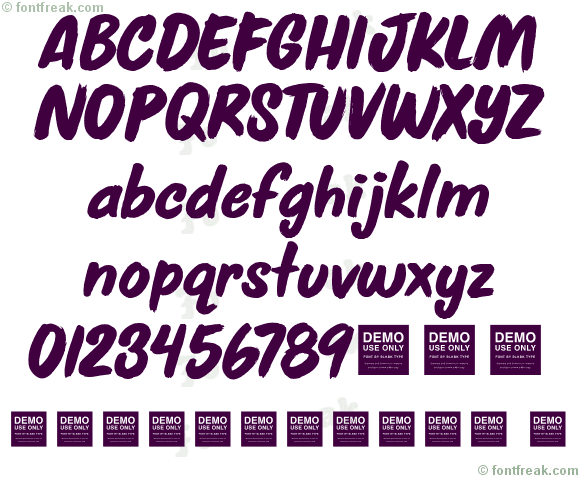
Jive Talk
Jive Talk by BLKBK Fonts is a captivating display font that embodies a playful spirit, perfect for anyone seeking to add a touch of personality to their projects. This font features a bold, hand-drawn style that exudes a lively and energetic vibe. The strokes are thick and dynamic, offering a strong presence while maintaining a friendly and approachable look. With its ample spacing and rounded edges, Jive Talk ensures readability in various sizes, making it versatile for both print and digital applications.
Ideal for a range of creative endeavors, Jive Talk excels in settings such as event promotions, vibrant restaurant menus, and eye-catching movie posters. Its whimsical nature makes it a great choice for branding projects aimed at younger audiences, or any context where fun and creativity are essential. Designers can leverage this font for social media graphics, flyers, or even packaging designs that require a unique flair. Small business owners looking to create memorable visuals will find this font especially appealing for advertisements or merchandise.
The target audience for Jive Talk includes graphic designers, content creators, and small business owners who want to make a statement with their typography. This font is a fantastic tool for those who wish to convey an informal yet impactful message, resonating well with audiences seeking authenticity and creativity.
In conclusion, Jive Talk stands out not only for its aesthetic charm but also for its versatility across various applications. With a Jive Talk font free download available, users can easily incorporate this distinctive typeface into their projects, ensuring that their designs are not only visually stunning but also rich in character.